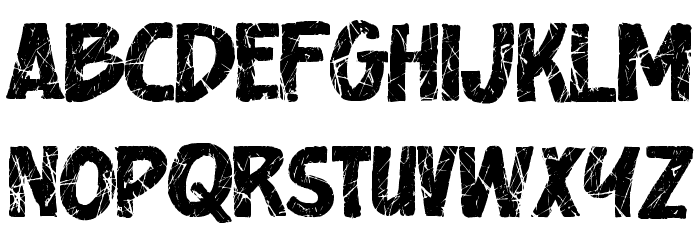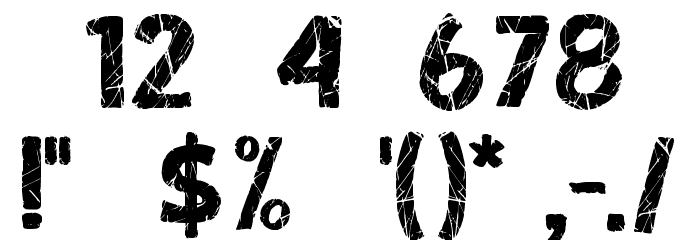
Good Explorer Font
This font features a rugged, distressed appearance with a cracked texture that gives it a bold and edgy look. The uppercase and lowercase letters are consistent in style, maintaining a uniform distressed pattern across all characters. The numbers and special characters also follow this design, ensuring a cohesive appearance throughout. The font's unique texture makes it stand out, ideal for projects that require a strong visual impact. Its boldness and decorative style make it suitable for eye-catching headlines and creative designs.
A bold, distressed font with a cracked texture for impactful designs.
- Font: Good Explorer
- Proposed Projects: Ideal for posters, album covers, branding materials, and any project needing a bold, edgy aesthetic.